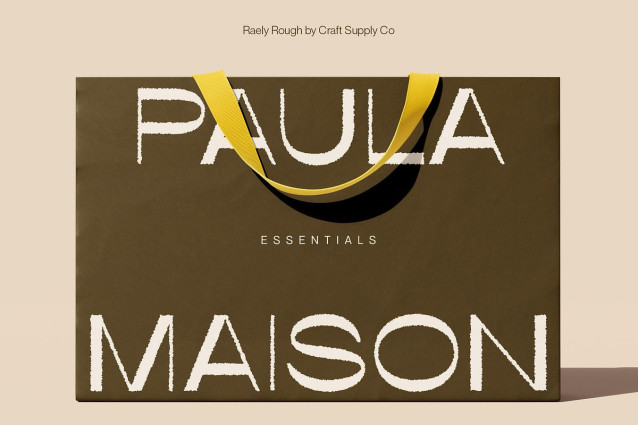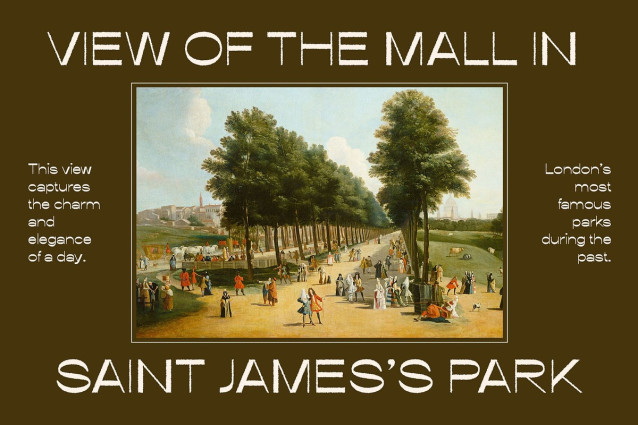
Raely Rough Font
Raely Rough Font is a distinctive sans serif font that challenges convention with its reverse contrast—thin strokes where you’d expect thickness, and boldness where you’d expect delicacy. This playful inversion of traditional letterform weight adds a bold, unexpected rhythm to the type, making it ideal for designers looking to create something different and memorable.
Thin Forms Meet Retro Funky Energy Its slim, elongated structure gives Raely Rough a refined, lightweight appearance, yet it retains a bold personality through its funky retro-inspired curves. The combination of narrow lines and groovy proportions brings a sense of cheerfulness and movement, infusing every word with character and charm.
Rough Texture Adds Grit and Authenticity The added rough texture enhances its expressiveness, giving each character a distressed, tactile quality. This texture evokes a handcrafted, vintage print feel—adding warmth, imperfection, and authenticity to digital layouts. It’s perfect for designs that aim to balance polish with personality.
Creative, Experimental, and Full of Character Raely Rough shines in creative and expressive projects where typography plays a central role. From album covers and posters to branding and editorial headlines, this font delivers a unique statement that draws the viewer in with its artistic flair and unexpected structure.